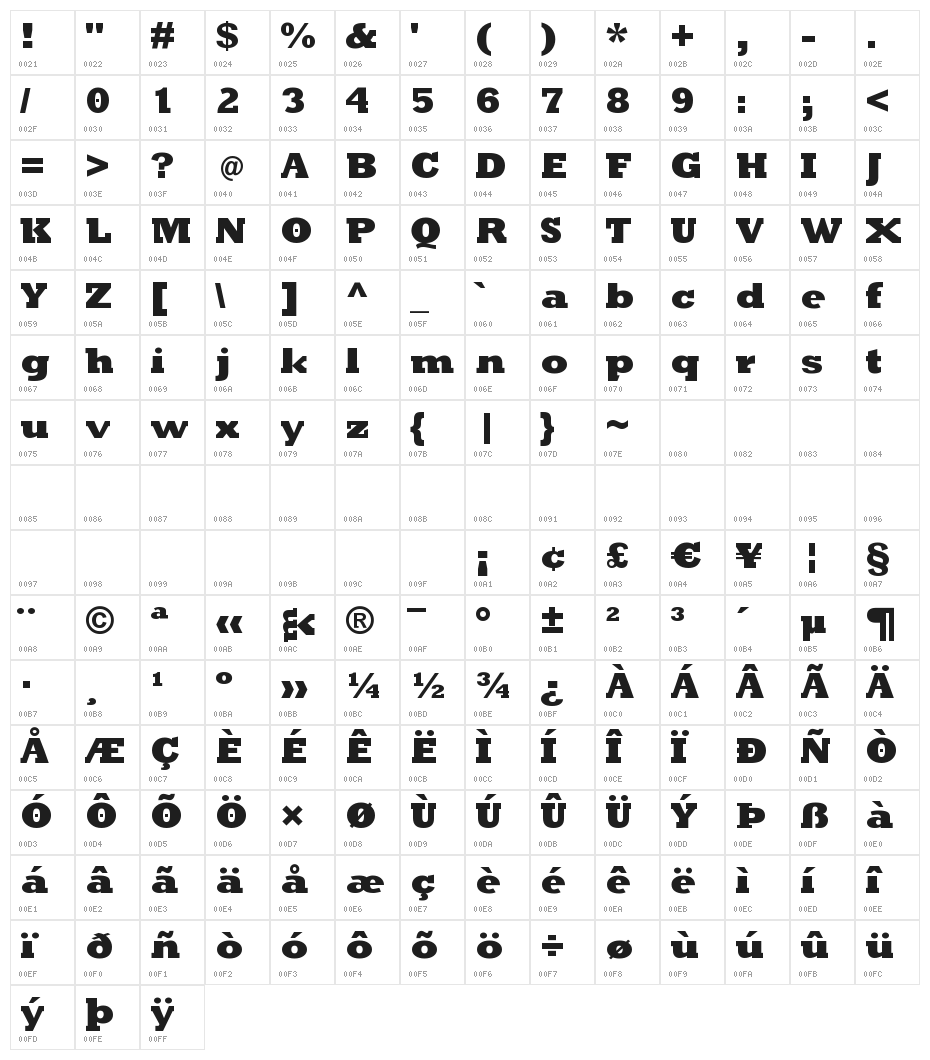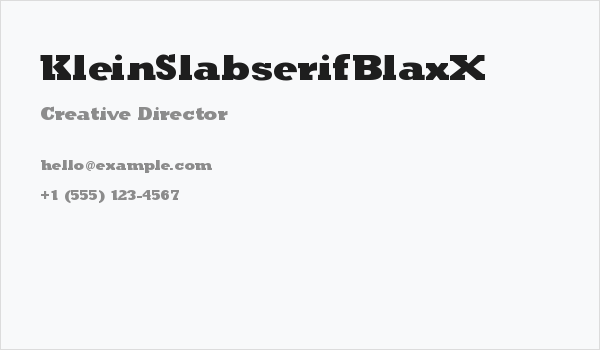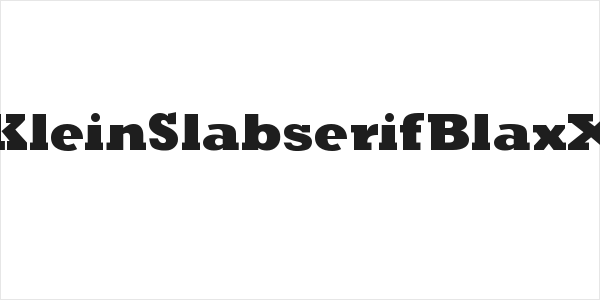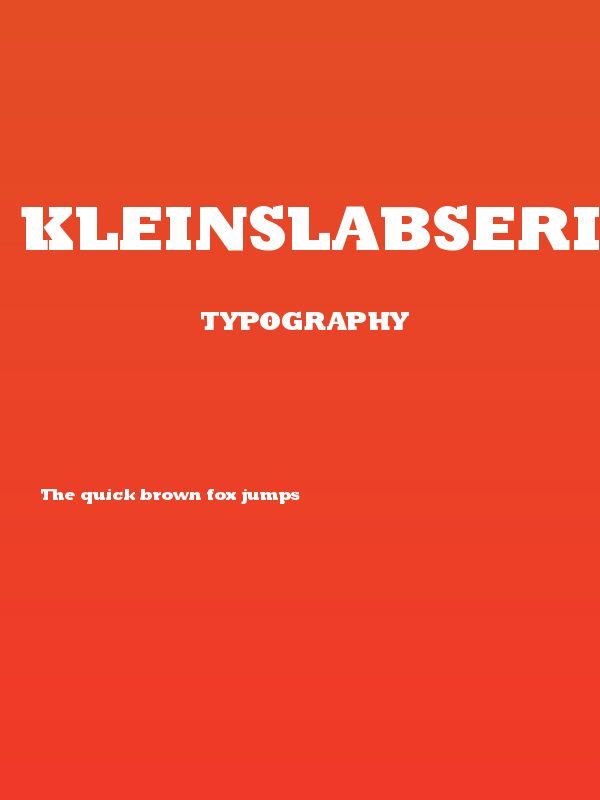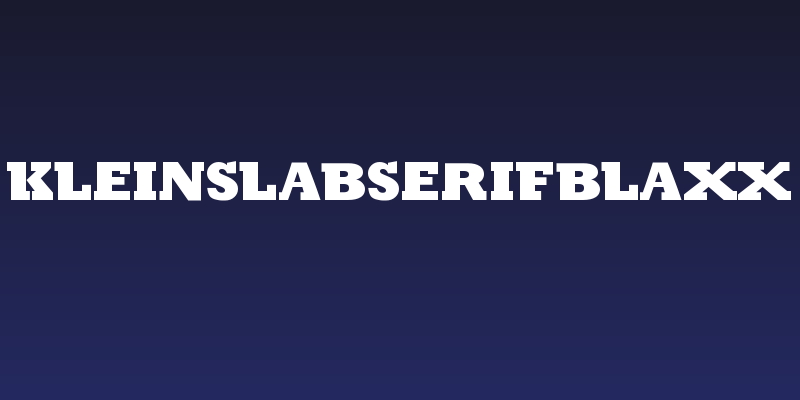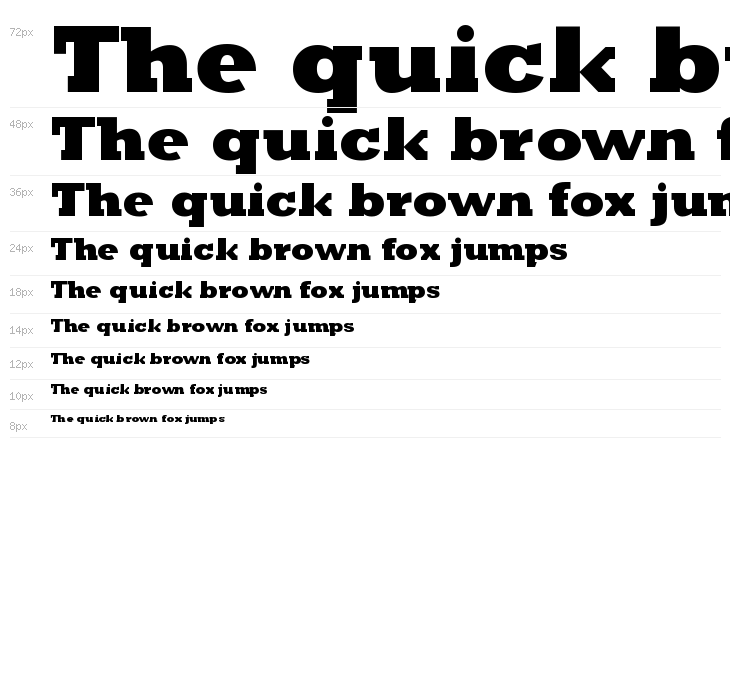
KleinSlabserifBlaxX Font
KleinSlabserifBlaxX Description
This font is a bold and assertive slab serif typeface characterized by thick, block-like serifs and strong, uniform strokes. The uppercase letters are robust and commanding, while the lowercase letters maintain a consistent weight, ensuring readability and impact. The numerals are equally bold, providing a cohesive look across all characters. Special characters are designed with the same boldness, making them stand out effectively. The overall design is modern yet retains a classic slab serif feel, making it versatile for various applications.
Proposed ProjectsIdeal for headlines, posters, branding, and any design requiring a strong visual impact.